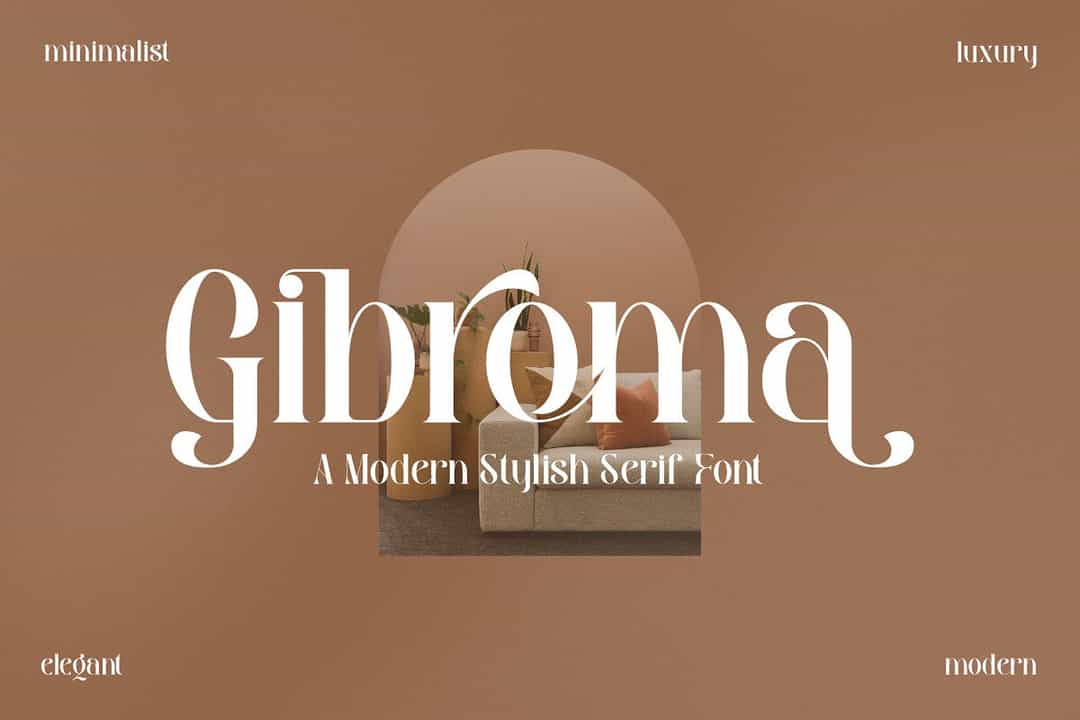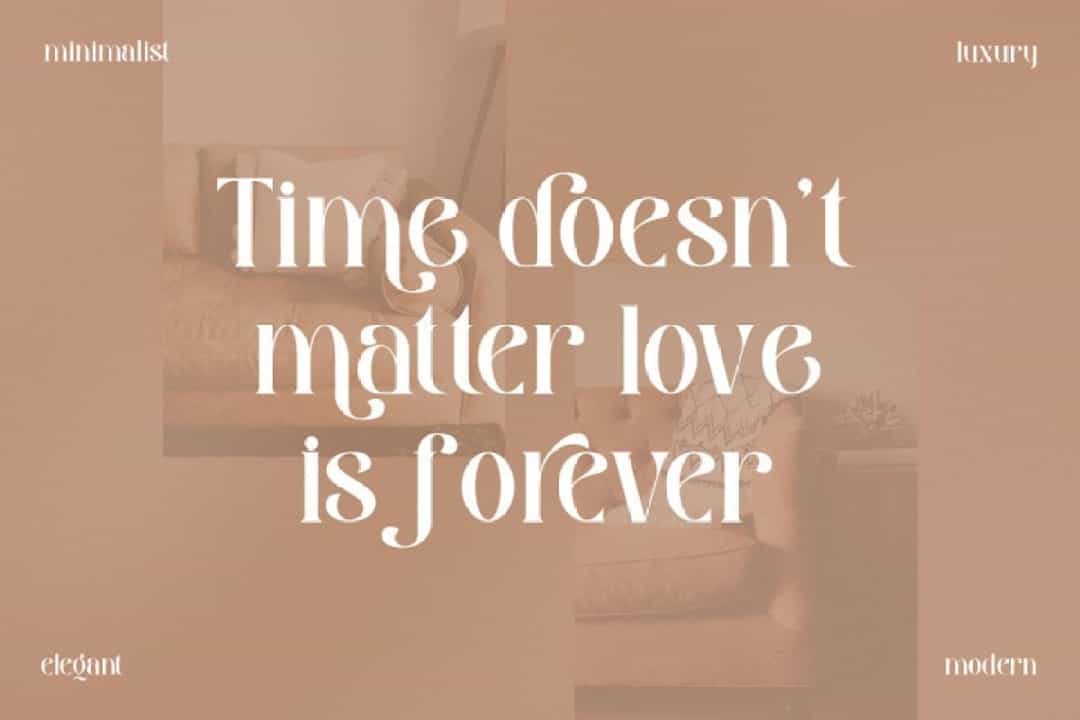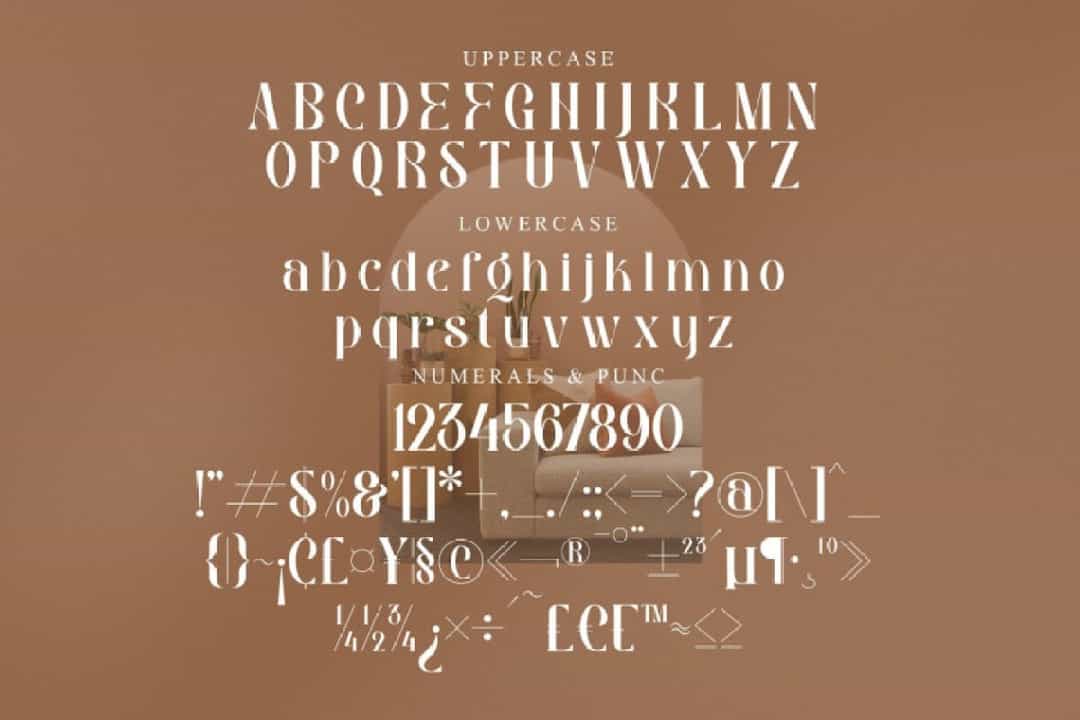
Gibroma Serif Font, created by Storytype, is a contemporary serif and classic font, boasting both style and modern appearance. Ideal for creating luxurious logos, book or film name designs, fashion brand clothing logos, letters from magazines letters quotes etc… this typeface will surely leave an impressionful first impression wherever used!